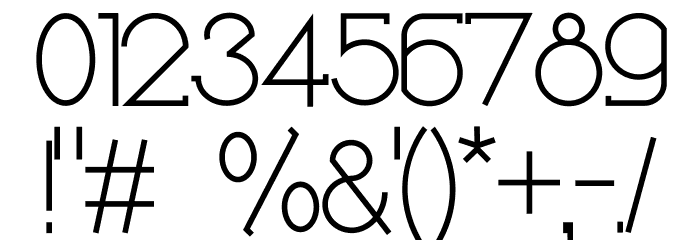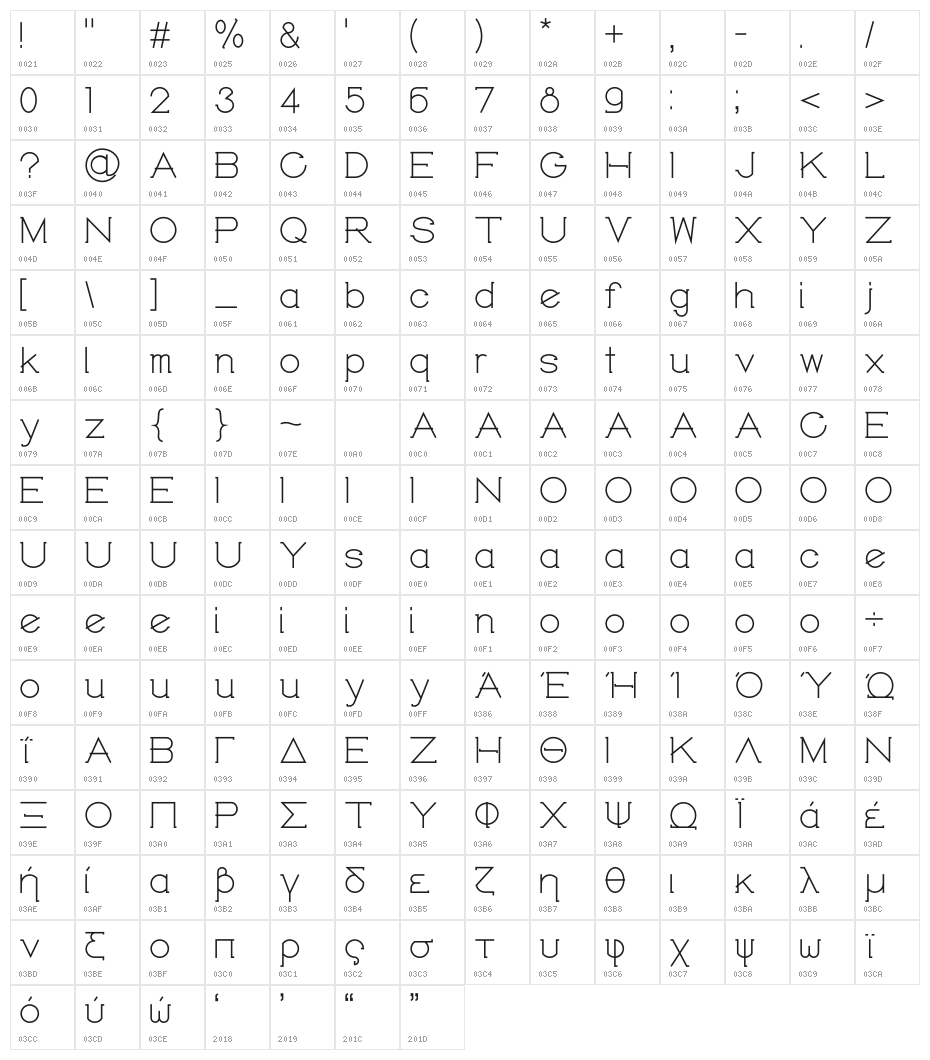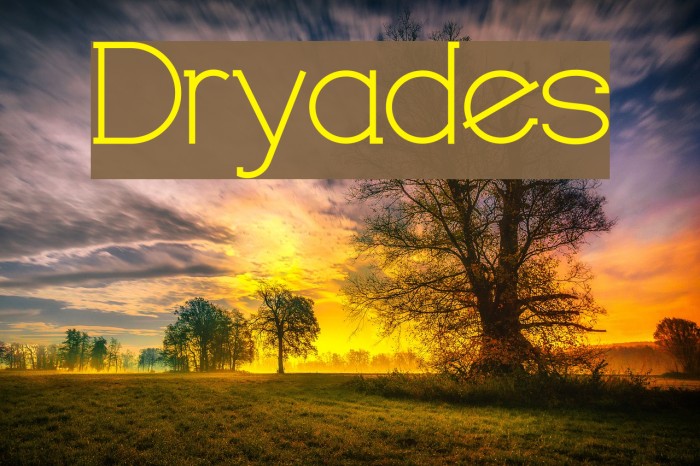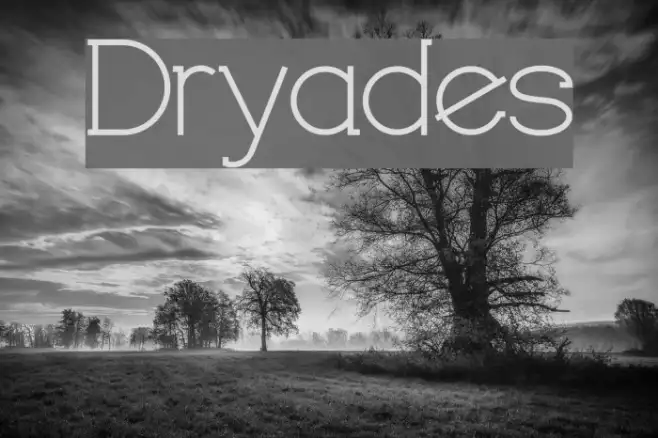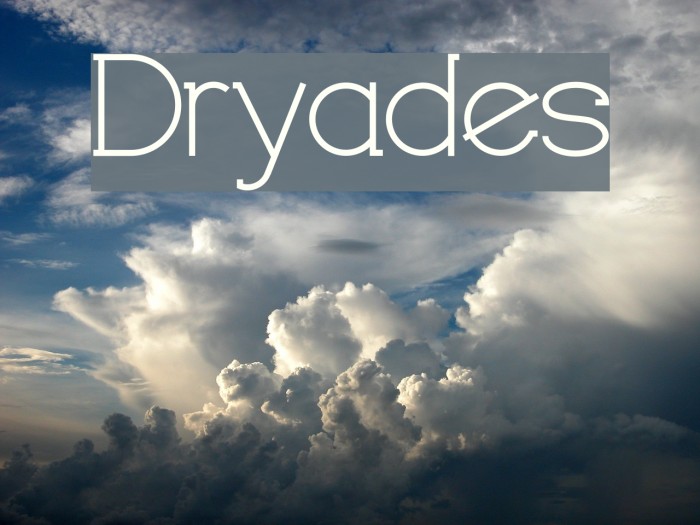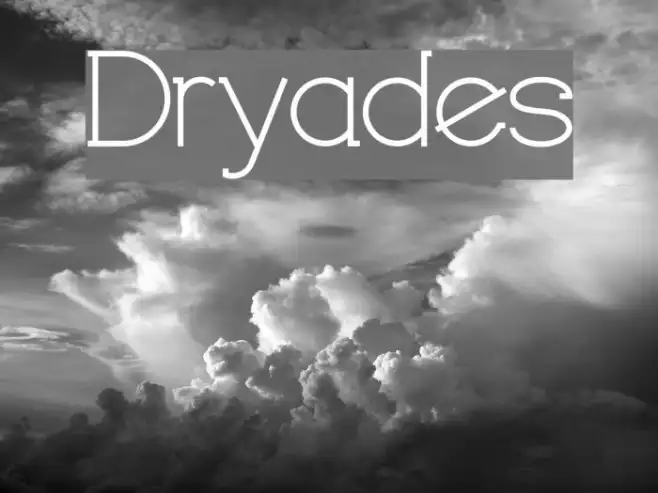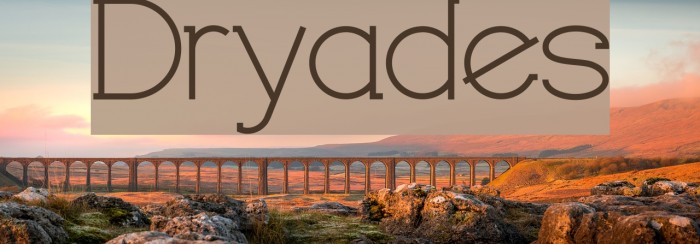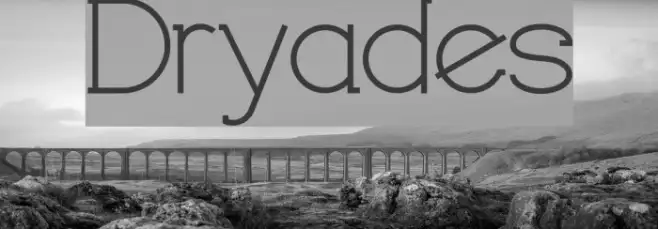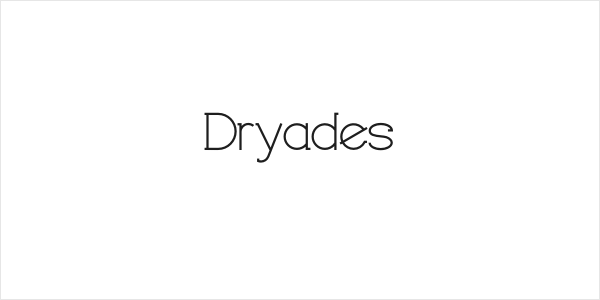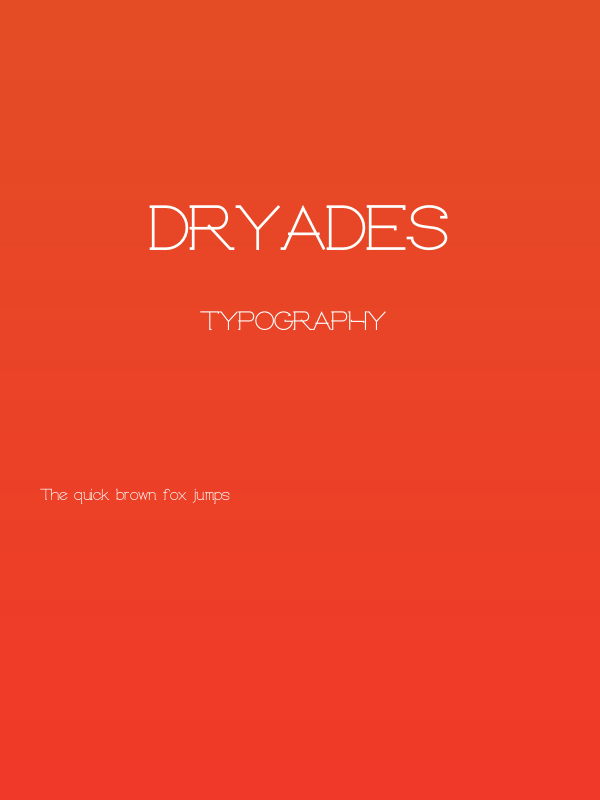
Dryades Font
Dryades Description
This font features a clean, geometric design with a modern aesthetic. The characters are constructed with consistent stroke widths, giving it a uniform appearance. The uppercase letters are tall and slightly condensed, while the lowercase letters maintain a balanced proportion. The numerals are clear and legible, matching the overall style of the alphabet. Special characters are included, designed to complement the letterforms seamlessly. The font's simplicity and clarity make it versatile for various design applications.